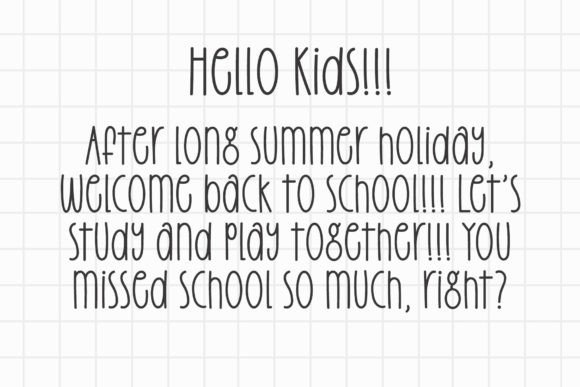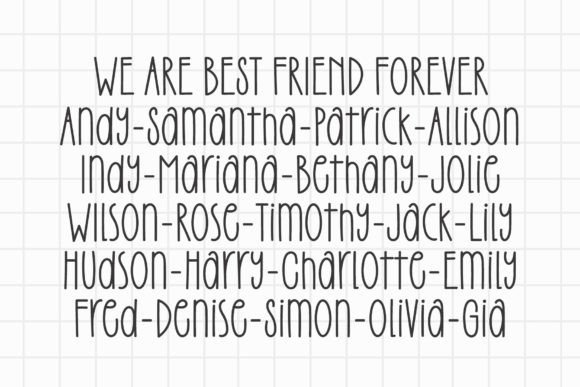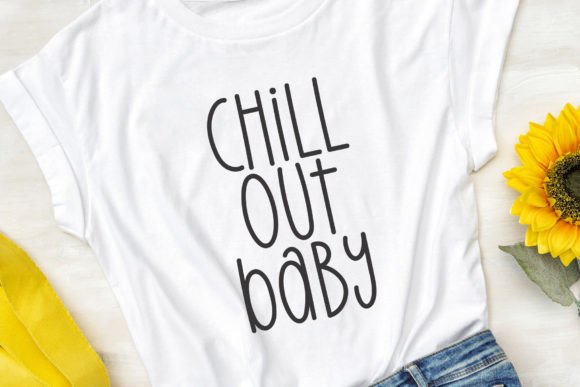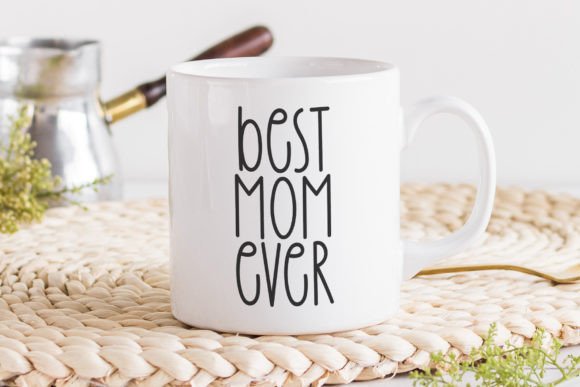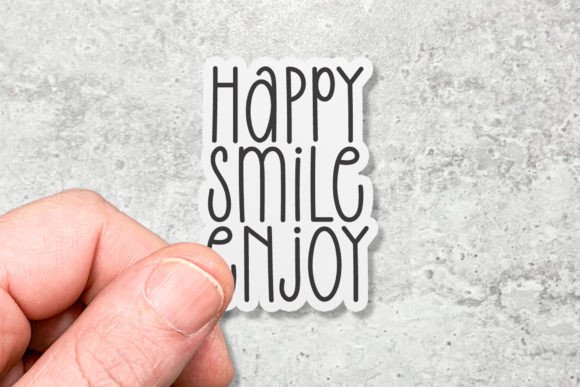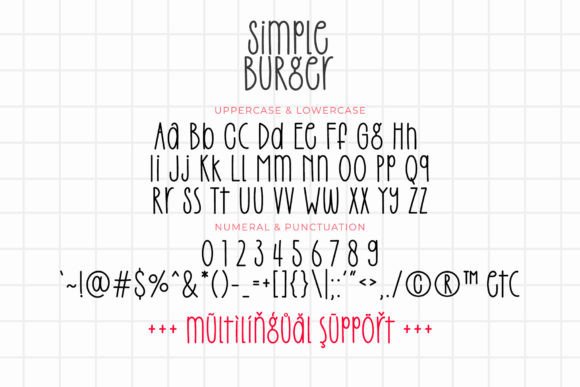
Introduction to Simple Burger Font
Simple Burger is a sweet and friendly handwritten font.
Simple Burger Font offers exceptional quality and versatility, making it a valuable addition to your design toolkit. Whether you’re creating for personal projects or commercial use, Simple Burger Font delivers professional results.